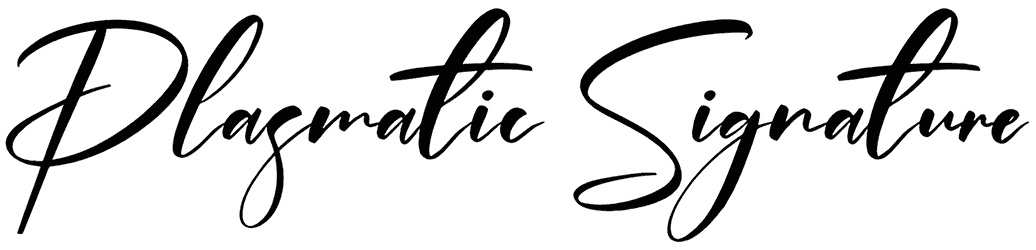
Plasmatic Signature Font
Apply the handwritten script font Plasmatic Signature for stunning results. Though it’s not very readable, this signature font may give the impression of being more casual and spontaneous. Its small letters and informal appearance make it a good fit for books, magazines, and other printed media.